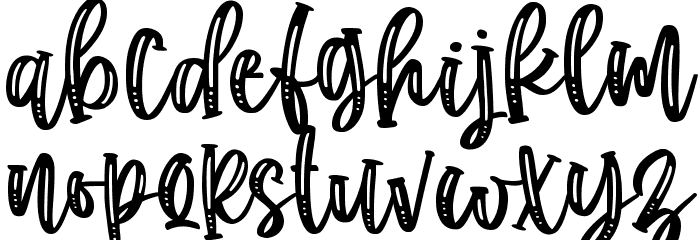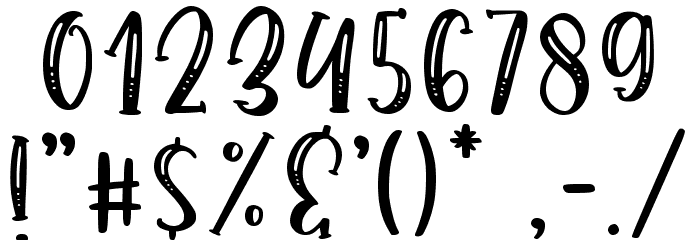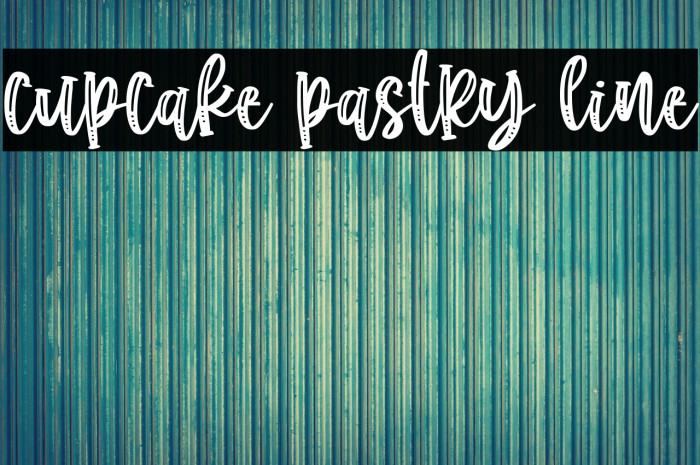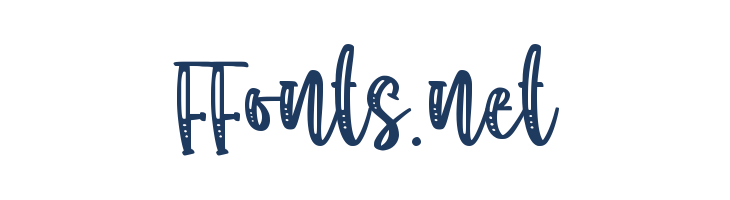
cupcake pastry line Font
This playful and whimsical font features a handwritten style with bold, rounded strokes and a lively, energetic appearance. Each character is adorned with small decorative dots, adding a unique and charming touch. The uppercase and lowercase letters maintain a consistent flow, with slightly exaggerated curves and loops that enhance its friendly and approachable feel. The numbers and special characters are equally expressive, making this font ideal for creative projects that require a personal and informal touch. Its distinct style is perfect for capturing attention and conveying a sense of fun and creativity.
A playful, handwritten font with bold strokes and decorative dots.
- Proposed Projects: Ideal for greeting cards, children's book covers, playful branding, and social media graphics.